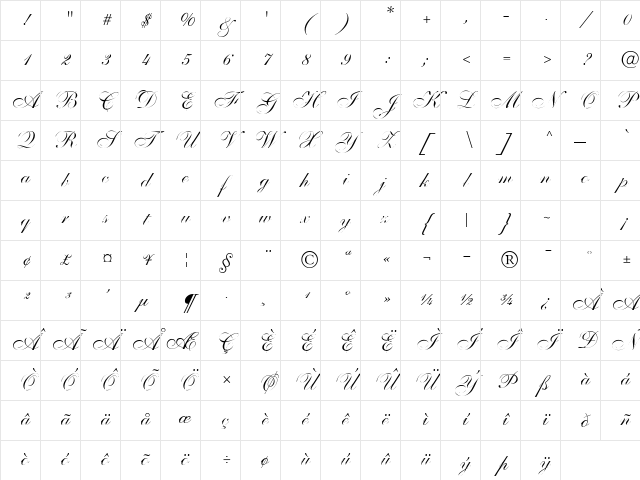
Distemper Regular
Design Context for Distemper
Distemper is a composed and adaptable typeface that performs quietly and consistently across a wide range of design contexts.